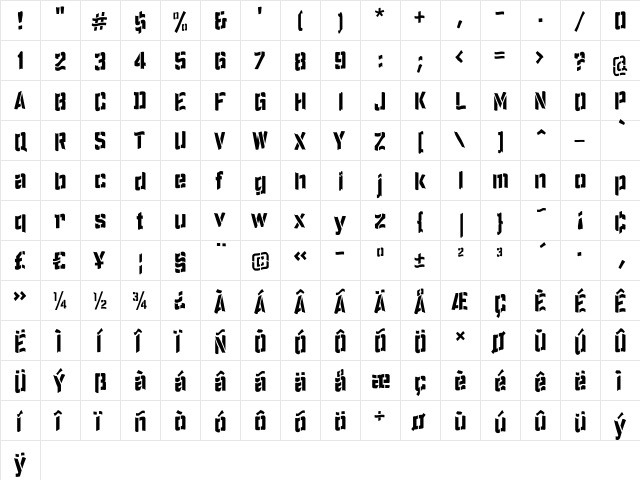
SailingJunco Regular
Design Context for SailingJunco Typeface
SailingJunco is a composed and adaptable typeface that performs quietly and consistently across a wide range of design contexts.